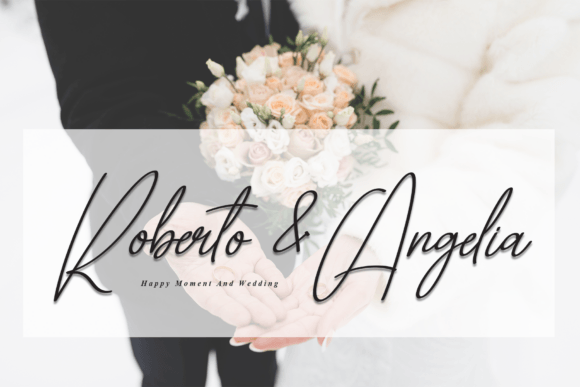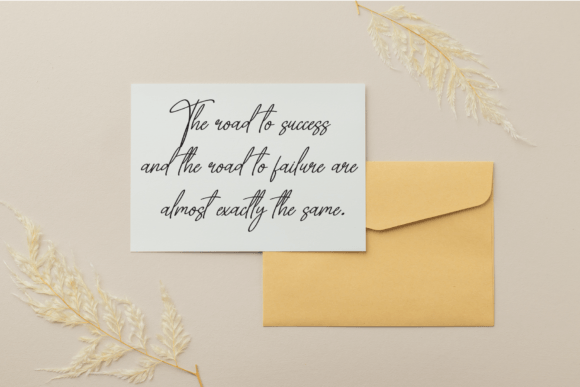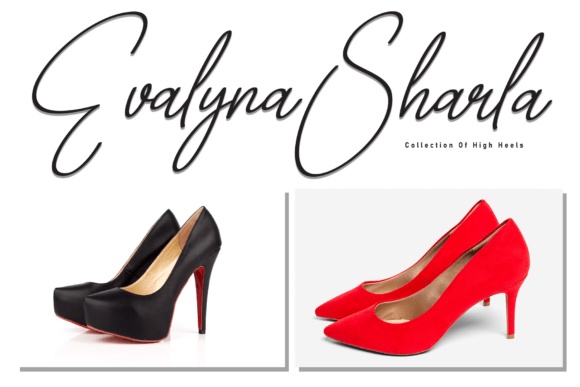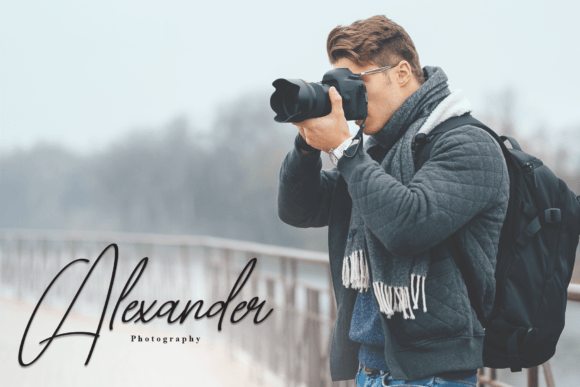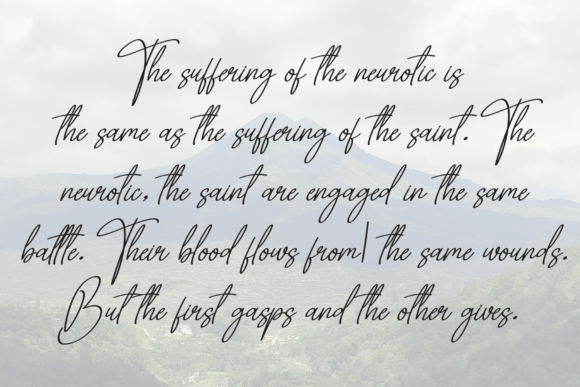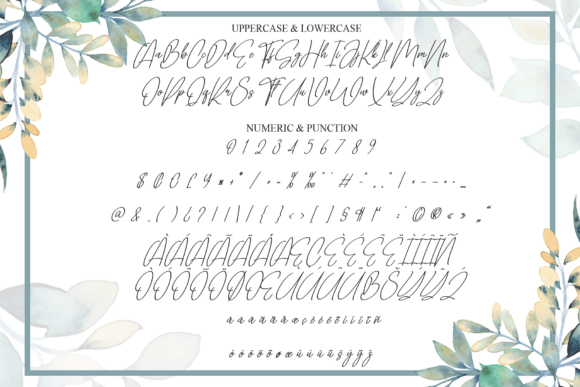
The Enthralling Font: A Stylish Handwritten Script to Elevate Your Designs
I’ll never forget the time I was working on a wedding invitation project, and my client asked for a font that exuded elegance and charm. I scoured the internet, tried countless fonts, but nothing seemed quite right. That was until I stumbled upon the Enthralling font. Its fluid strokes and natural flow instantly captivated me, and I knew I had found the perfect fit. In this article, I’ll share my experience with Enthralling, its features, and how to make the most of this beautiful font.
A Personal Review of Enthralling
- ✨ Elegant and charming: Enthralling’s handwritten script style adds a touch of sophistication to any design.
- ✅ Versatile: Perfect for invitations, branding, social media, and more.
- 🌈 Warm and creative: Enthralling brings a sense of personality and whimsy to your designs.
- 💻 Highly readable: Despite its elegant style, Enthralling remains clear and easy to read.
While Enthralling is an excellent font, there are a few things to keep in mind:
- 🤔 Limited use in very formal or corporate designs: Enthralling’s playful nature might not be suitable for very formal or corporate projects.
- ⚠️ May not work well in small sizes: As with many script fonts, Enthralling’s elegance may be lost in very small font sizes.
- Experiment with OpenType features, such as stylistic alternates, to add variety to your text.
The Story Behind Enthralling
Enthralling was designed by a talented typographer who aimed to create a font that would bring a sense of warmth and elegance to any design. Inspired by classic handwritten scripts, Enthralling’s creator poured their heart and soul into crafting a font that would captivate and inspire designers.
Q: Is Enthralling suitable for body text?
A: While Enthralling is highly readable, it’s best suited for headings and titles. For body text, a clearer font might be more suitable.
Q: Does Enthralling support OpenType features?
A: Yes, Enthralling supports OpenType features, including stylistic alternates, glyphs, and ligatures.